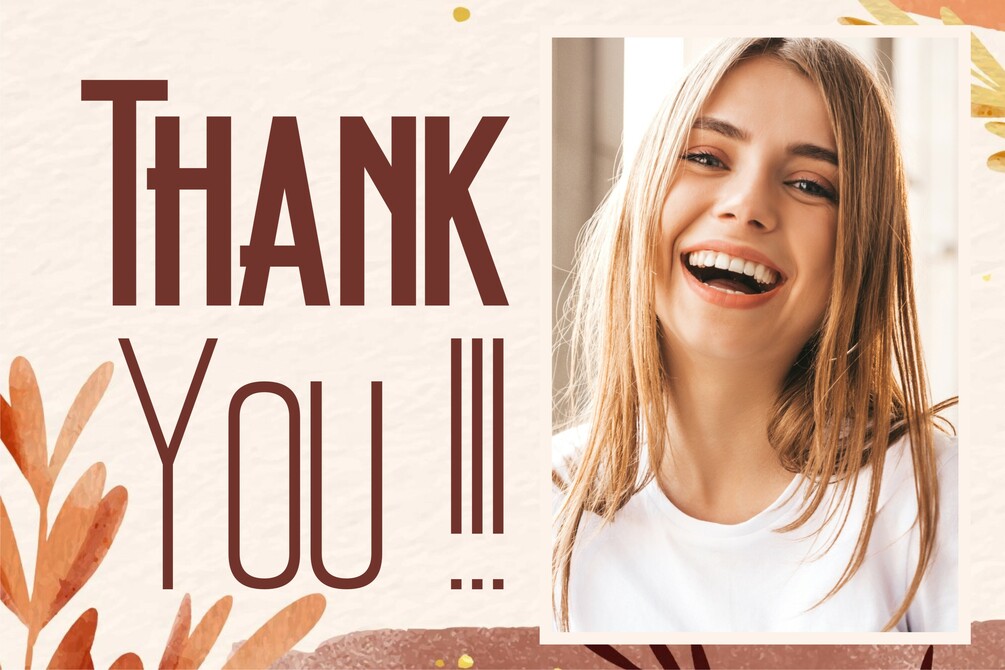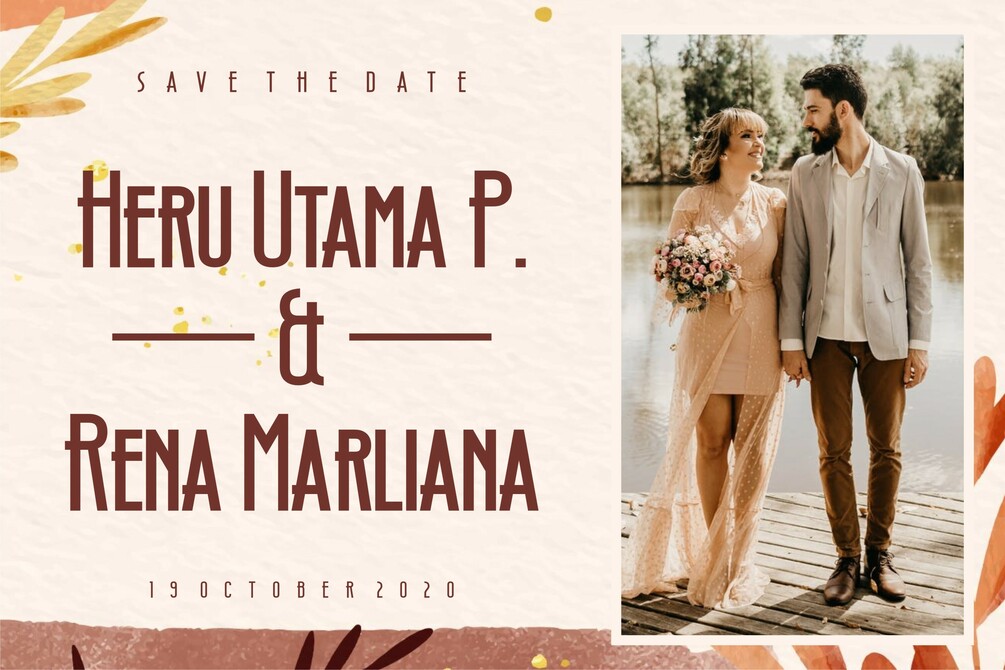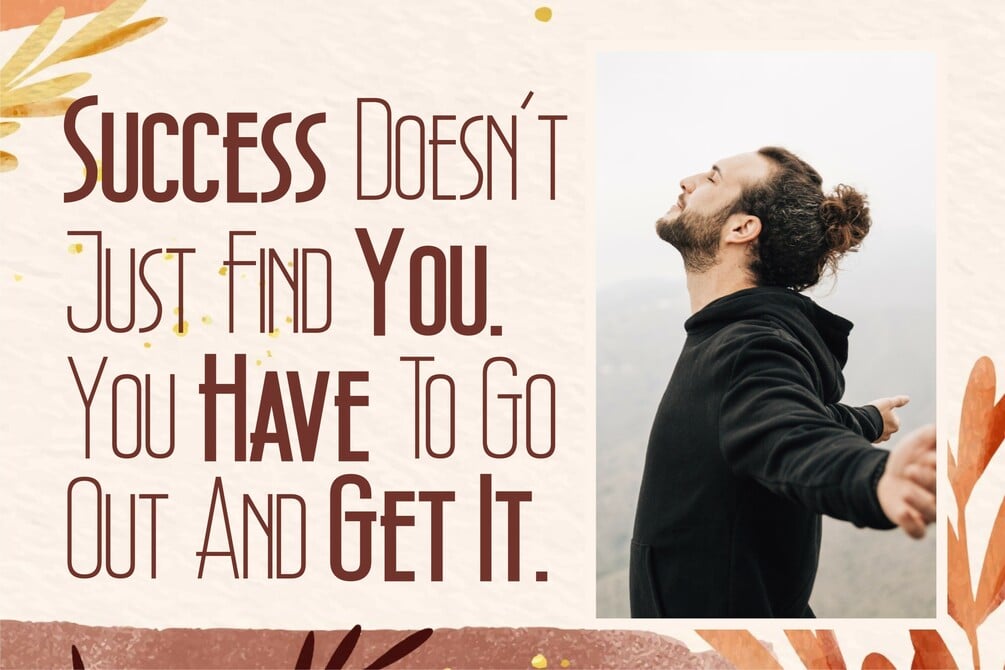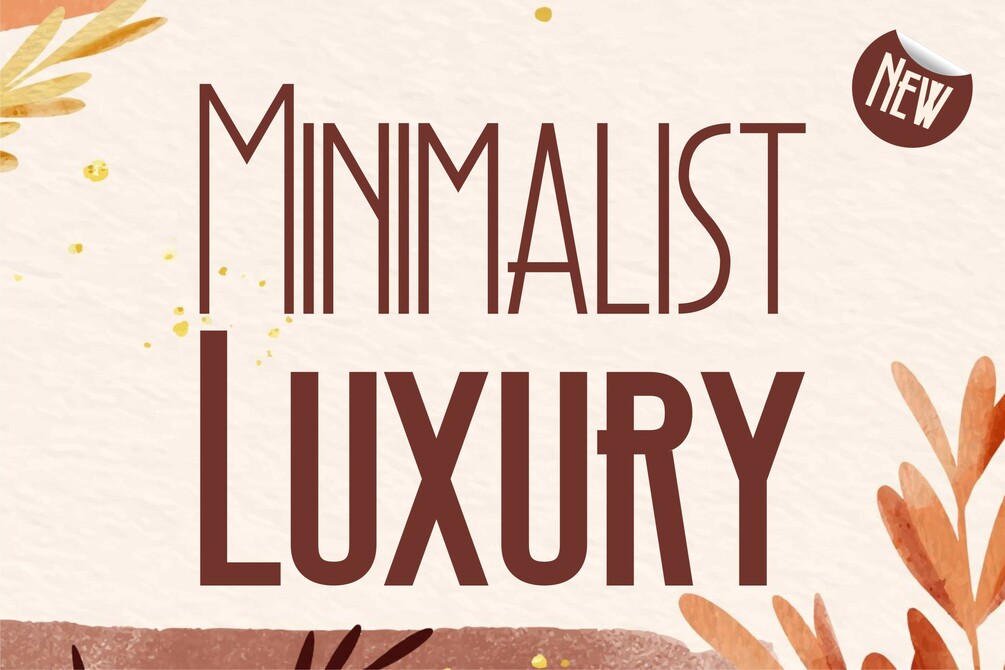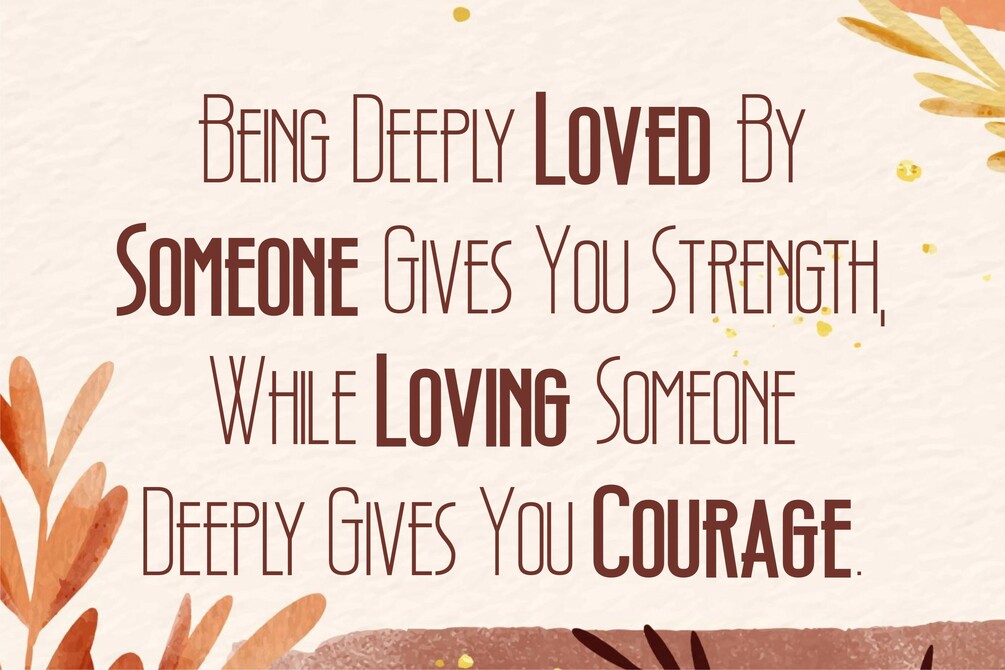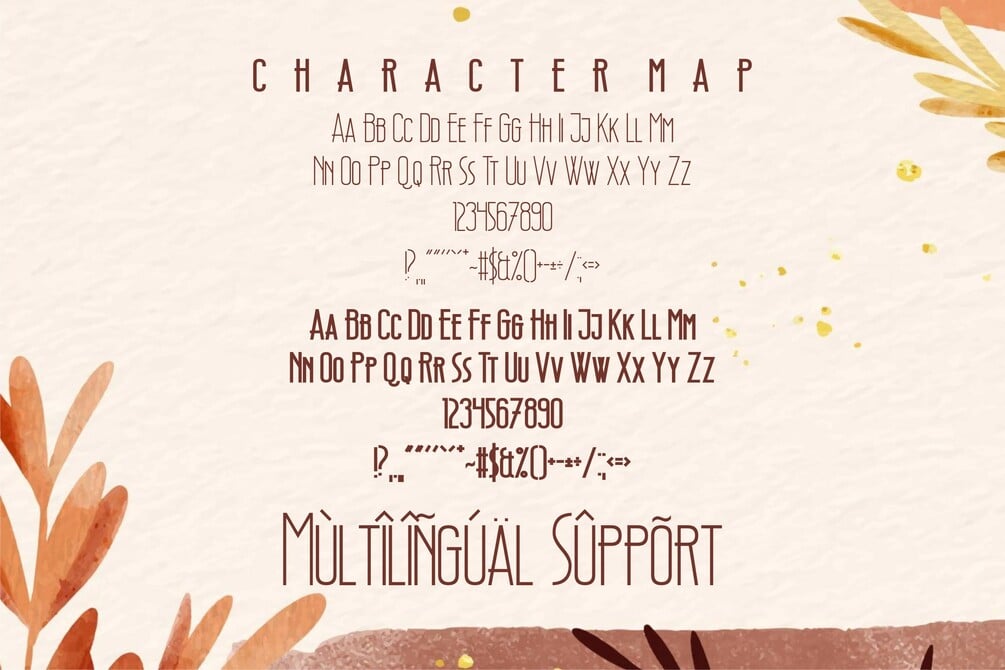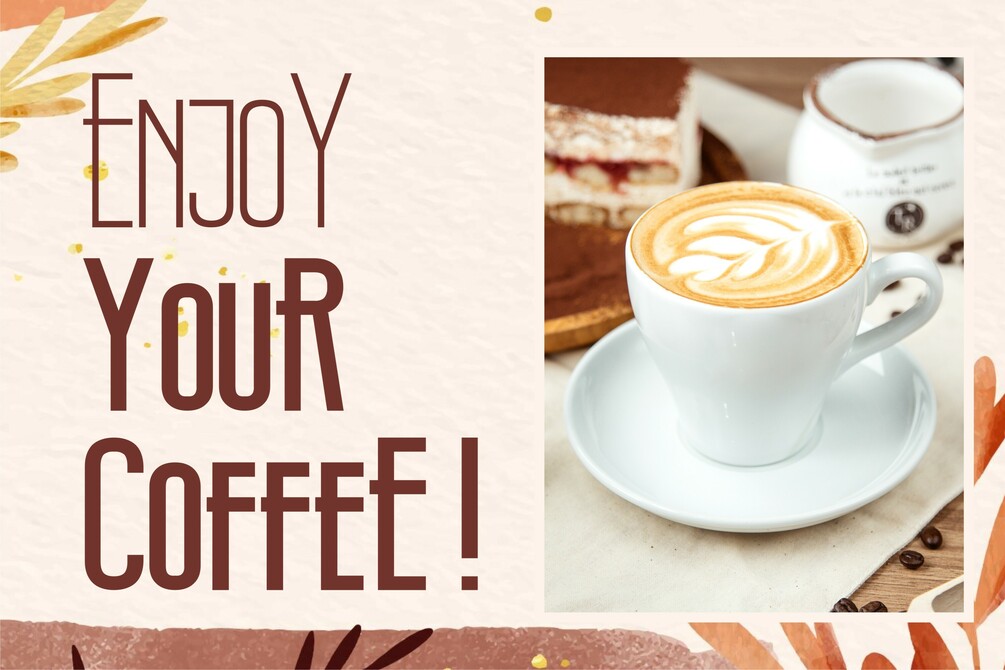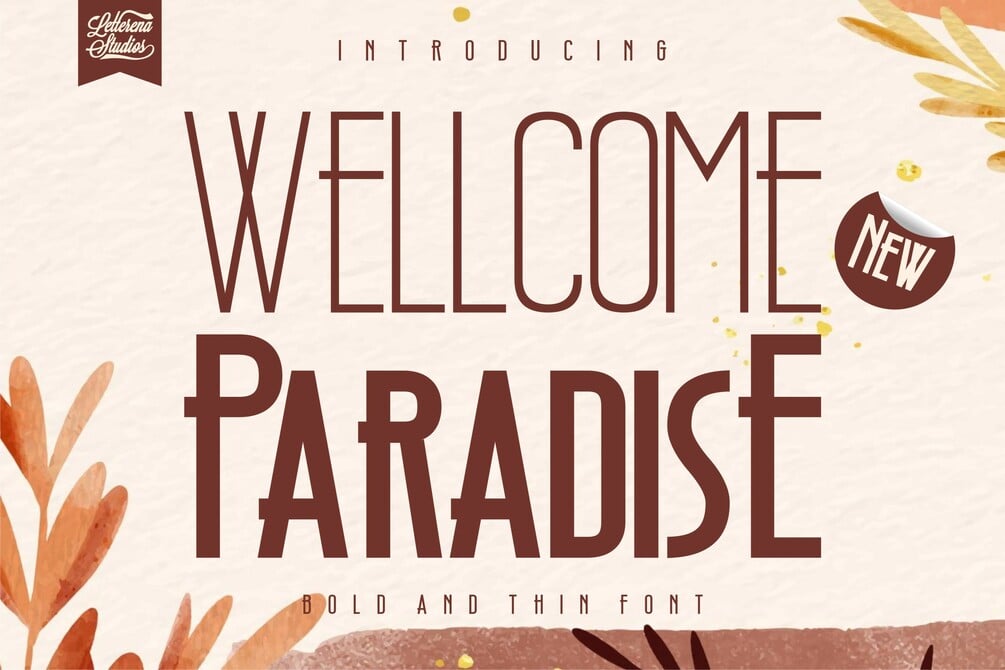
Wellcome Paradise - Modern Sans Serif Font
Wellcome Paradise - Modern Sans Serif Font, from Letterena, is a Beautiful sans serif font, suitable for any projects such as: logos, branding projects, homeware designs, product packaging, mugs, quotes, posters, shopping bags, t-shirts, book covers, name card, invitation cards, greeting cards, label, photography, watermark, special events, and all your other lovely projects that need a beautiful sans serif taste.